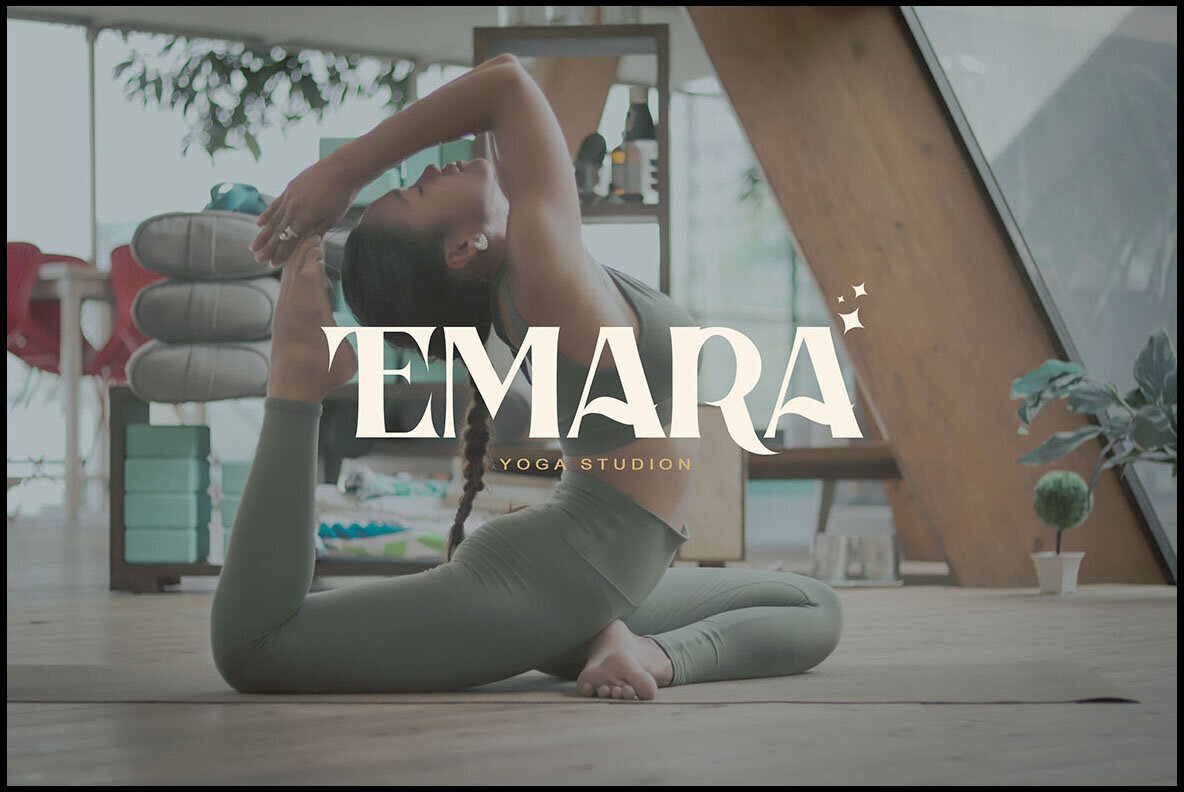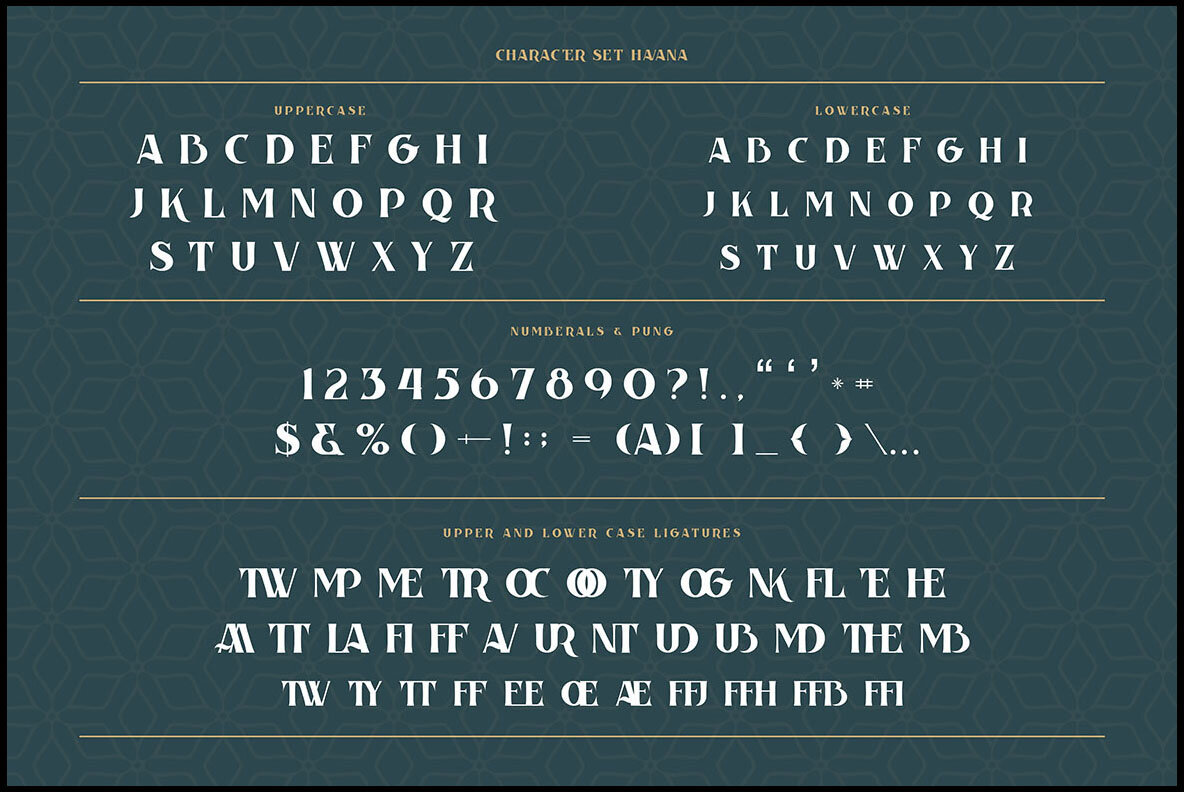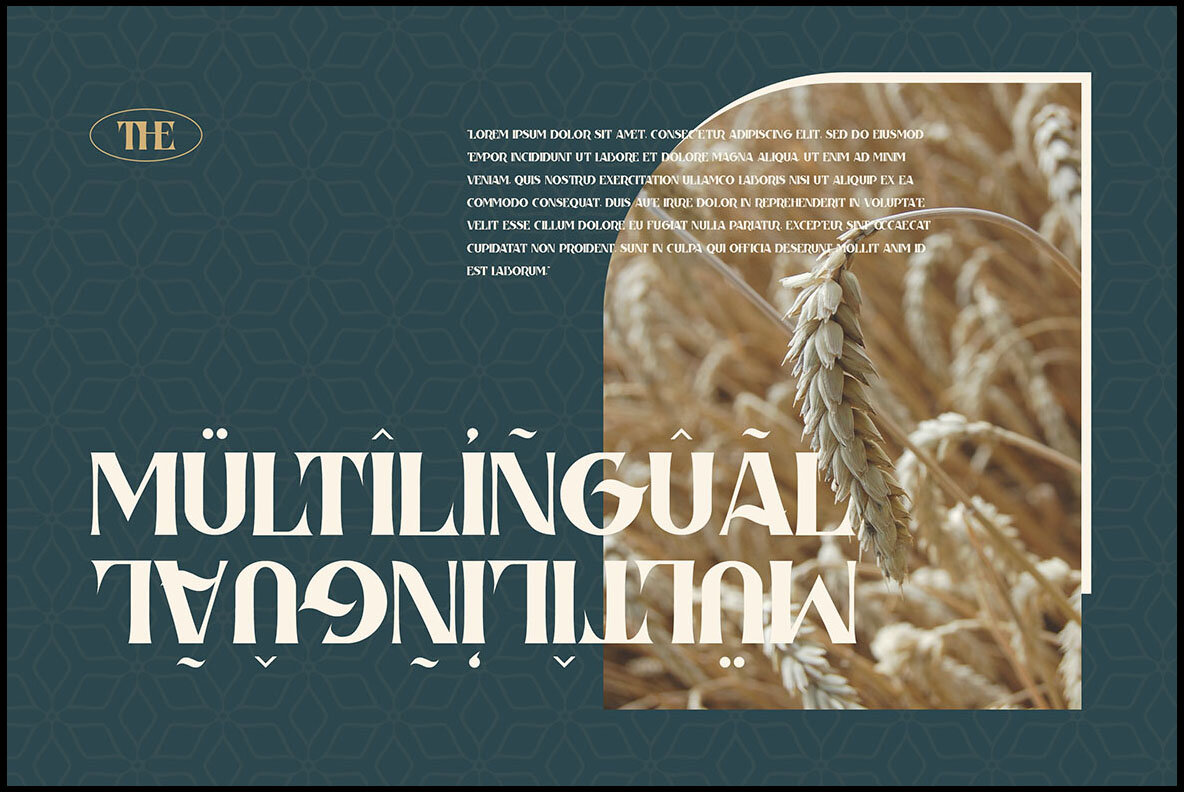
Havana Font
Havana Regular
Havana is a unique serif font that combines retro vibes with modern boldness, making it ideal for distinctive logo or branding projects. Its design effortlessly balances classic and contemporary, appealing to a broad range of stylistic preferences.Havana: A Retro and Modern Serif Font